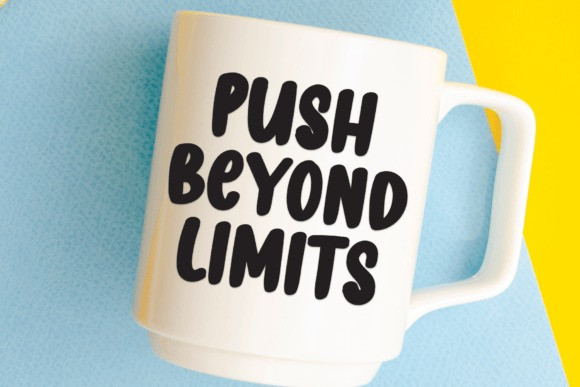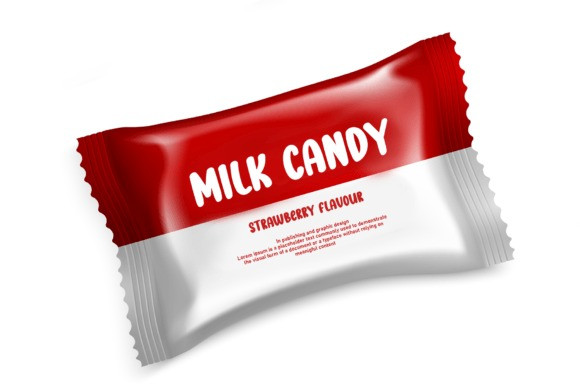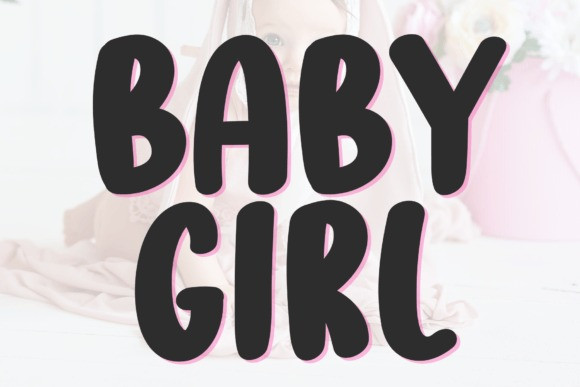
Baby Girl Typeface
Baby Girl Typeface is an enchanting handwritten font. This versatile font has a wide spectrum of applications ranging from greeting cards to headlines and is guaranteed to add a friendly feel to your next project.